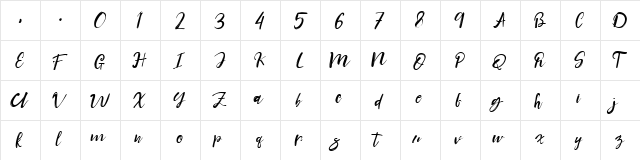
Candice Slanted
| Designer | Ferdiansyah |
Design Context for Candice Typeface
Candice is a composed and adaptable typeface that performs quietly and consistently across a wide range of design contexts. The slanted form adds forward momentum and visual energy.
Pro Tip: Use Candice for emphasis, pull quotes, and subheadings where its slanted energy can add rhythm to the layout.